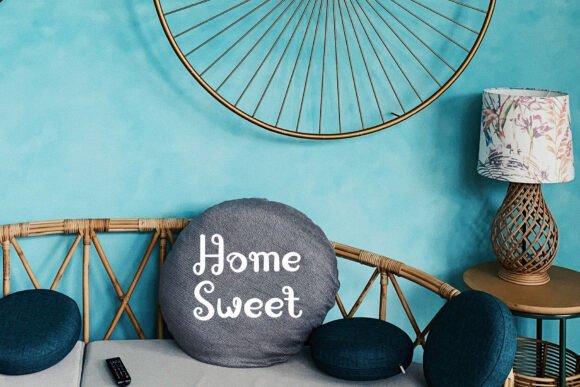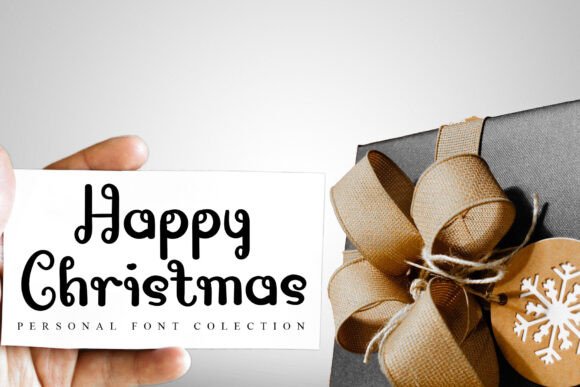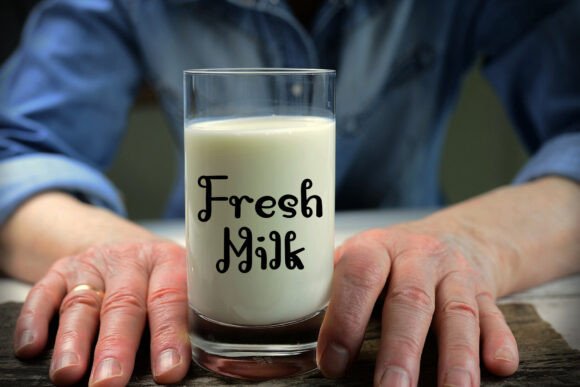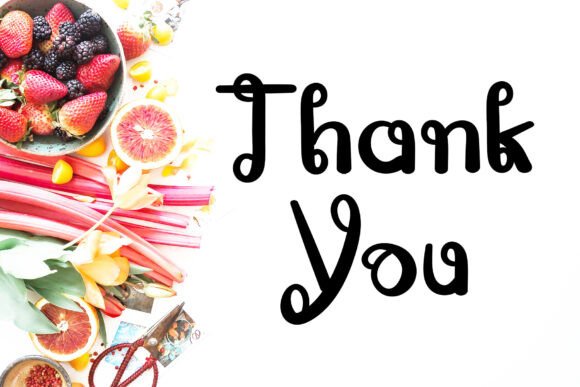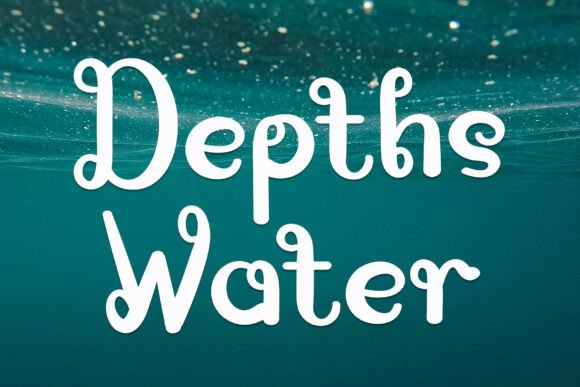
Introducing Depths Water Font: Elevate Your Designs with a Touch of Elegance
In the world of design, fonts play a crucial role in conveying the message and aesthetic of a project. Whether you’re working on a wedding invitation, a logo, or a billboard, the right font can make all the difference. If you’re looking for a unique and elegant font that adds a handwritten touch to your designs, look no further than Depths Water Font. In this article, we’ll dive into the features and benefits of Depths Water Font and explore how it can elevate your designs.
A Unique and Elegant Font
Depths Water Font is a one-of-a-kind font that boasts an elegant and sophisticated style. Its unique design makes it perfect for a variety of projects, including wedding invitations, greeting cards, billboards, logos, business cards, and more. The font’s elegant appearance is sure to capture the attention of your audience and leave a lasting impression.
Handmade Touch
One of the standout features of Depths Water Font is its handmade touch. The font features a varied baseline, which gives it a natural, hand-crafted feel. This makes it perfect for designers who want to add a personal touch to their projects. The font’s handmade appearance creates spectacular creations that will make your ideas look more real and engaging.
Depths Water Font is PUA encoded, which means you can access all glyphs and swashes with ease. This feature makes it easy to customize your designs and add unique touches. With PUA encoding, you can unlock the full potential of the font and take your designs to the next level.
Depths Water Font is a versatile font that is perfect for designers and crafters alike. Whether you’re working on a commercial project or a personal craft, this font is sure to meet your needs. Its elegant appearance and handmade touch make it ideal for a variety of projects, from wedding invitations to logos and business cards.
Benefits of Using Depths Water Font
So, why choose Depths Water Font for your next project? Here are just a few benefits of using this unique and elegant font:
- Elegant appearance: Depths Water Font boasts an elegant and sophisticated style that is sure to capture the attention of your audience.
- Handmade touch: The font’s handmade appearance adds a personal touch to your designs and creates a unique and authentic look.
- PUA encoded: With PUA encoding, you can access all glyphs and swashes with ease and unlock the full potential of the font.
- Versatile: Depths Water Font is perfect for a variety of projects, from wedding invitations to logos and business cards.
Tips for Using Depths Water Font
To get the most out of Depths Water Font, here are a few tips to keep in mind:
- Experiment with different sizes: Depths Water Font looks great in a variety of sizes, from small and delicate to large and bold.
- Pair with complementary fonts: Pair Depths Water Font with complementary fonts to create a unique and visually appealing design.
- Use with creative swashes: Take advantage of the font’s PUA encoding and use creative swashes to add a personal touch to your designs.
In conclusion, Depths Water Font is a unique and elegant font that is perfect for designers and crafters alike. Its handmade touch, elegant appearance, and PUA encoding make it a versatile font that can be used for a variety of projects. Whether you’re working on a wedding invitation, a logo, or a billboard, Depths Water Font is sure to elevate your designs and leave a lasting impression.